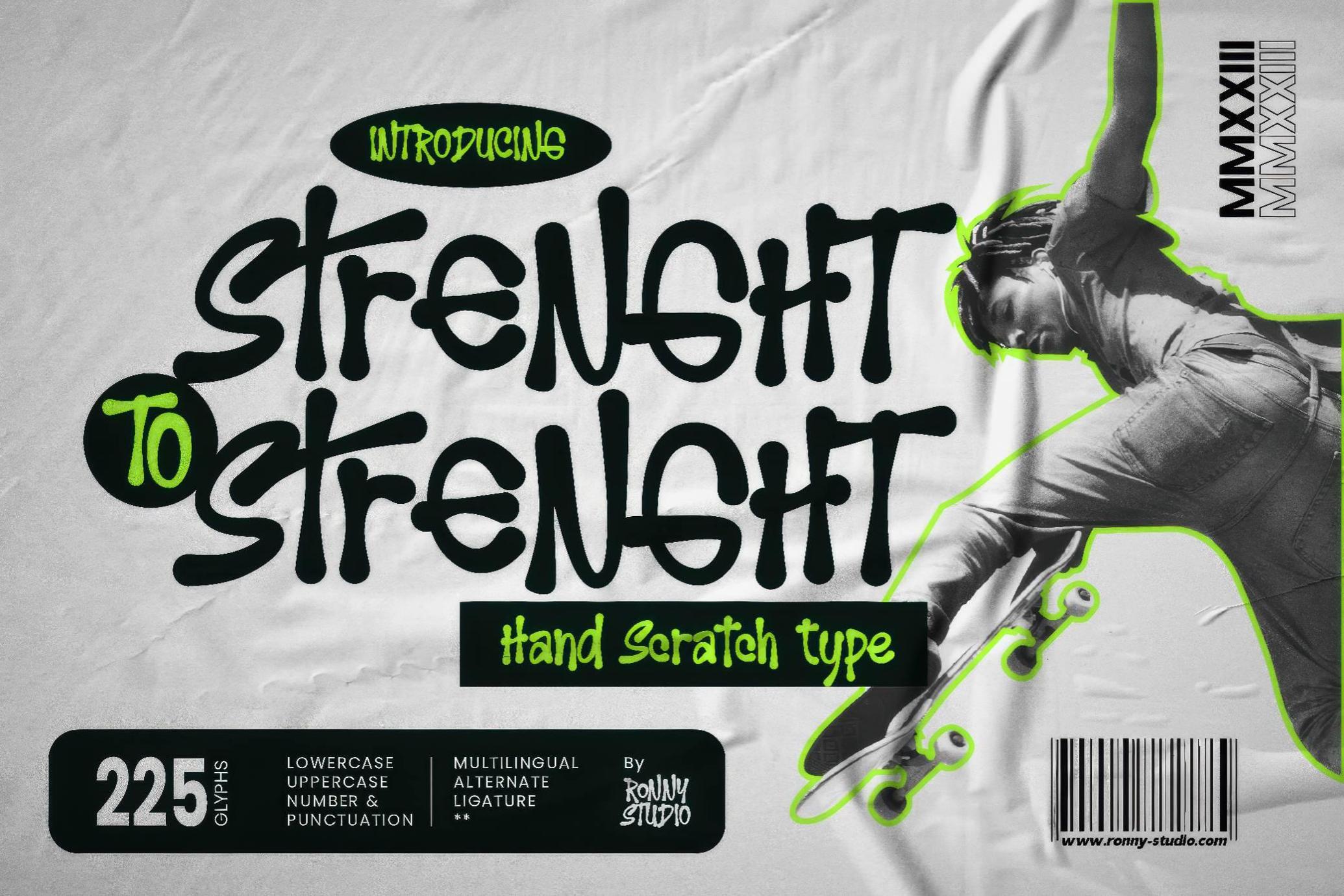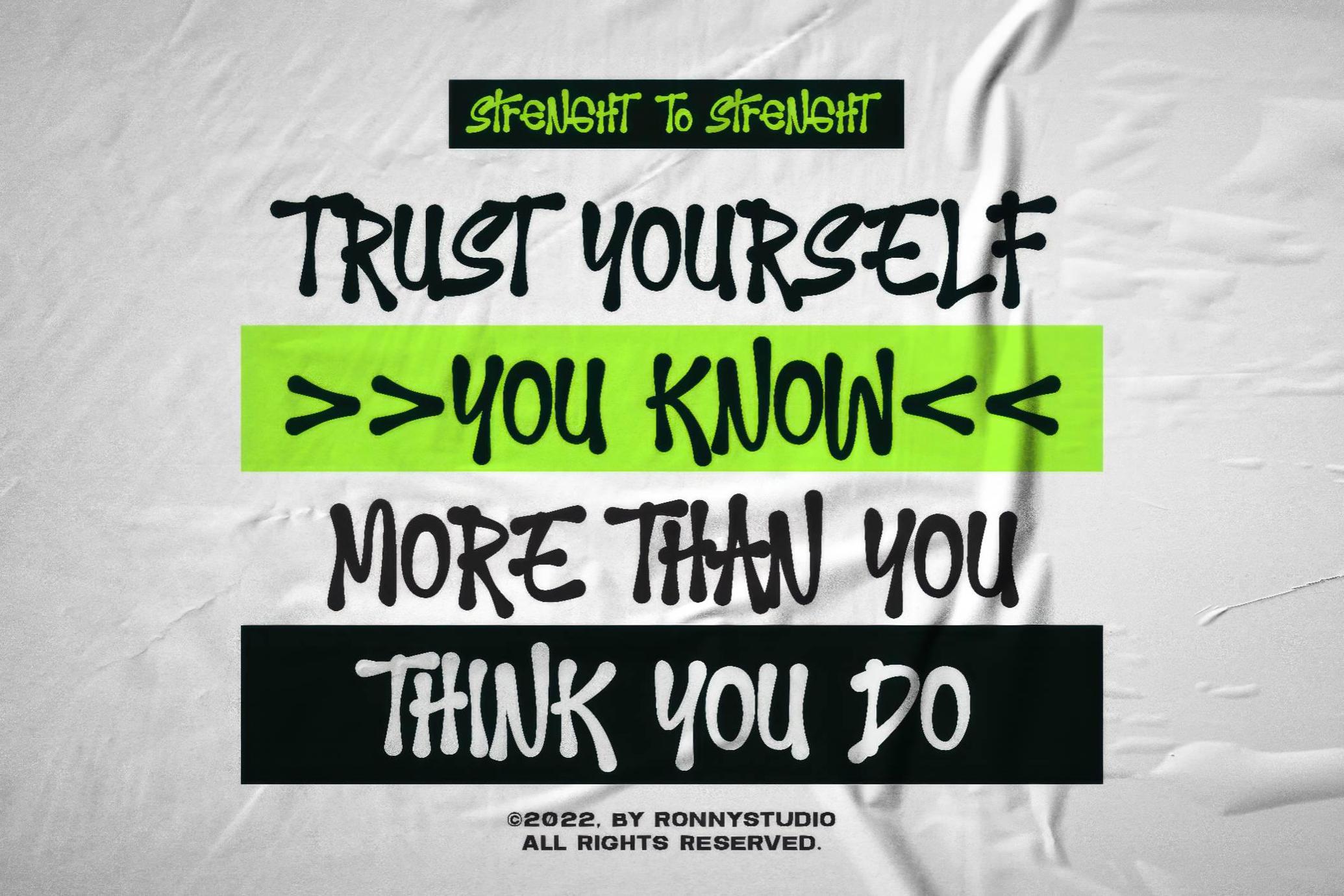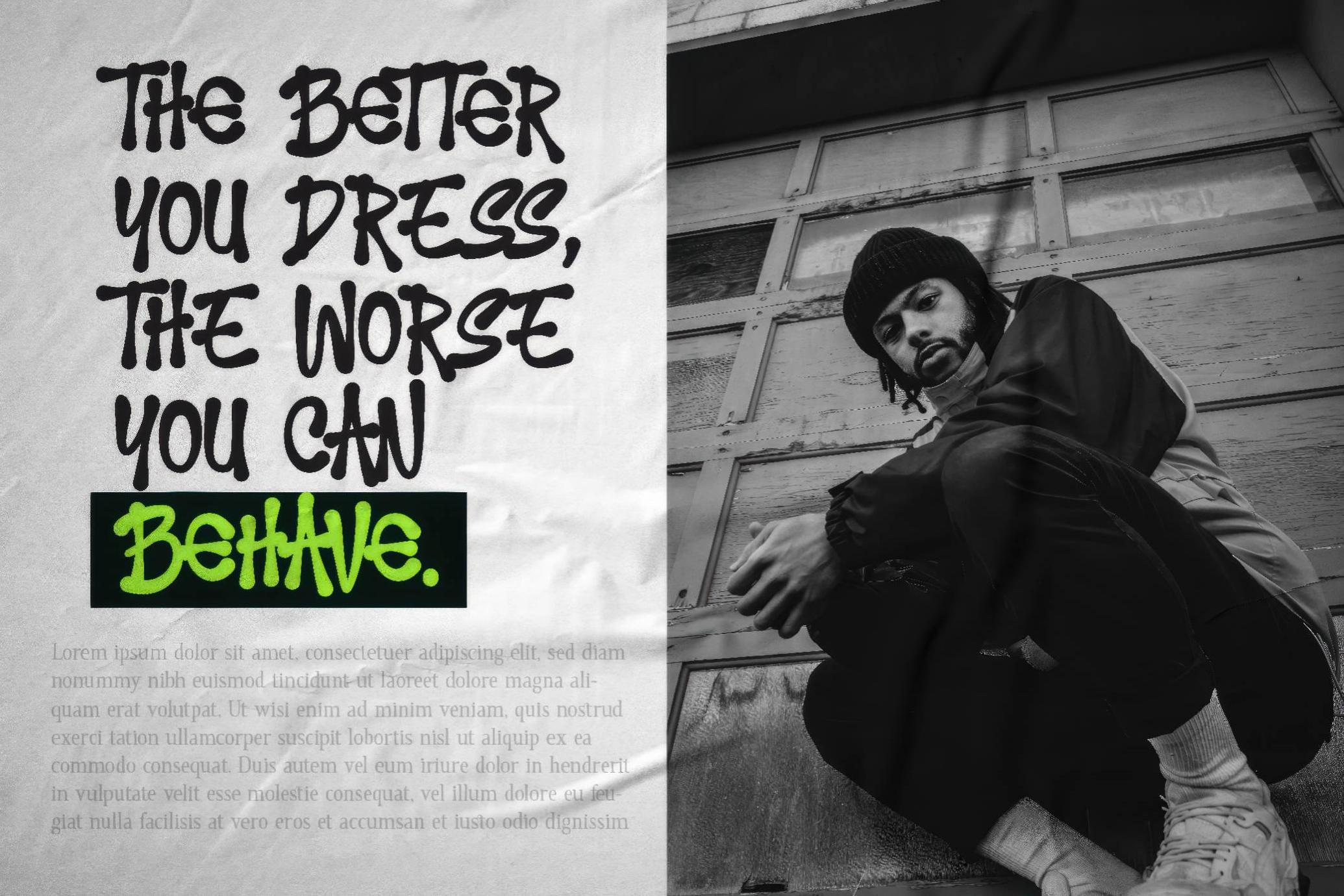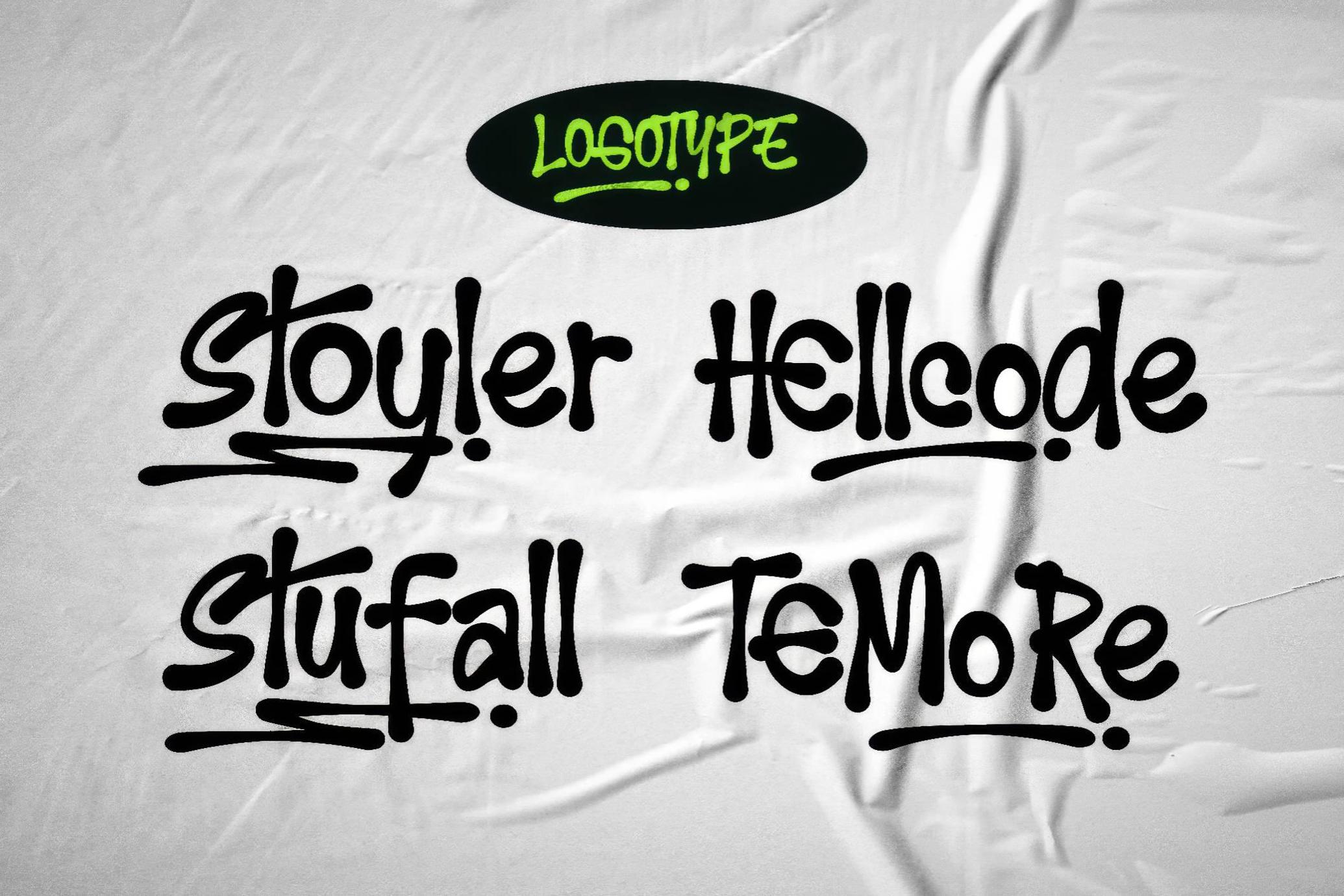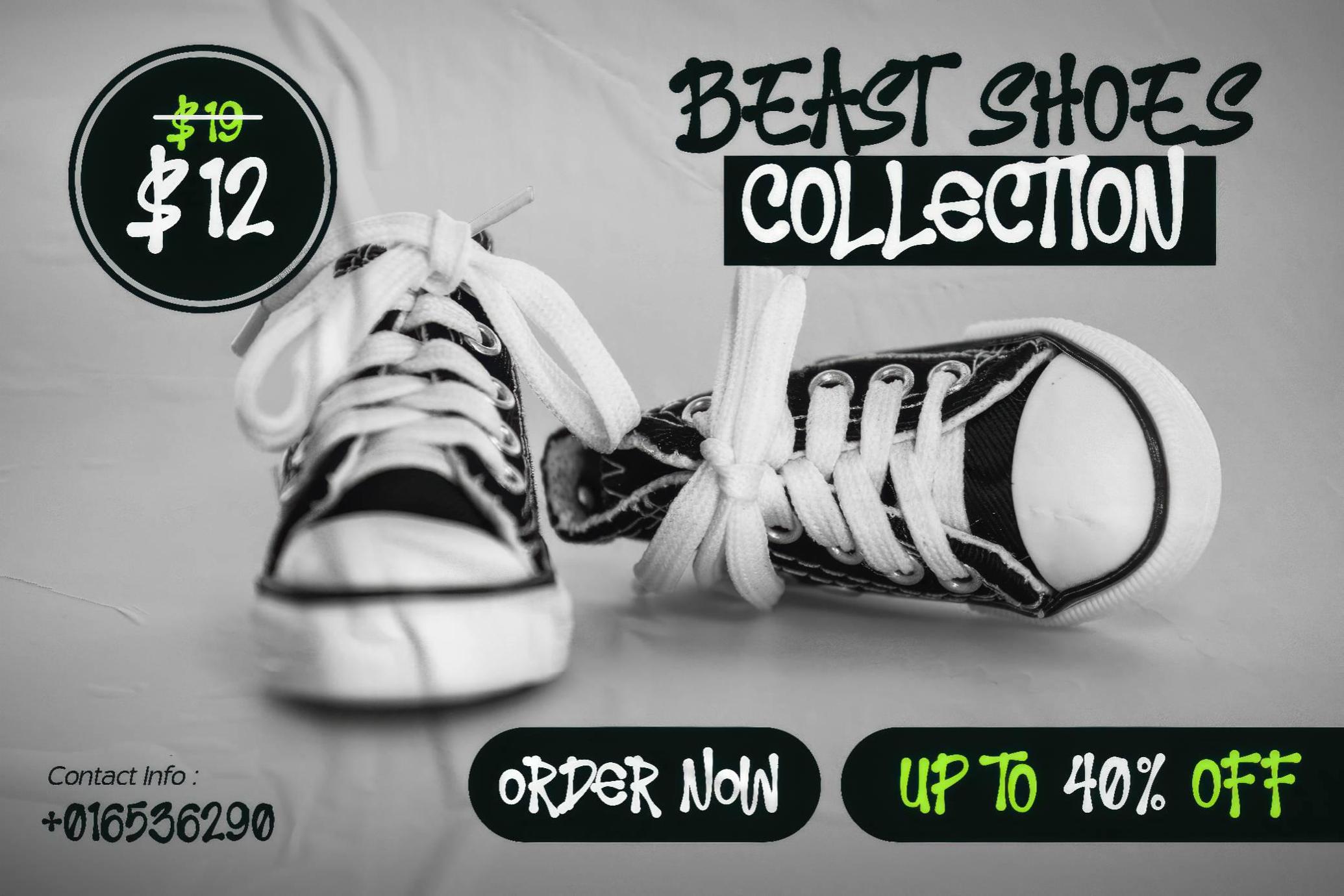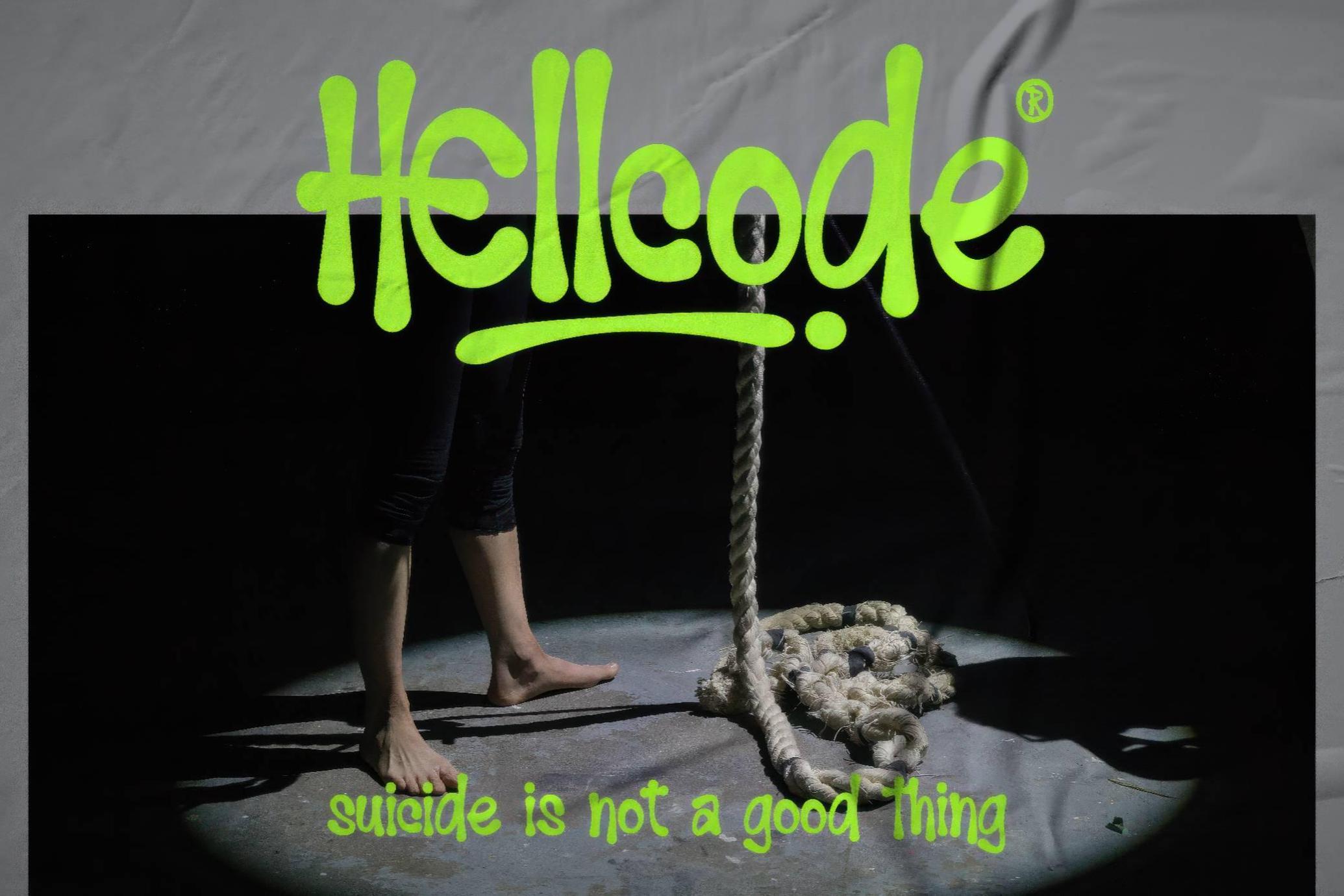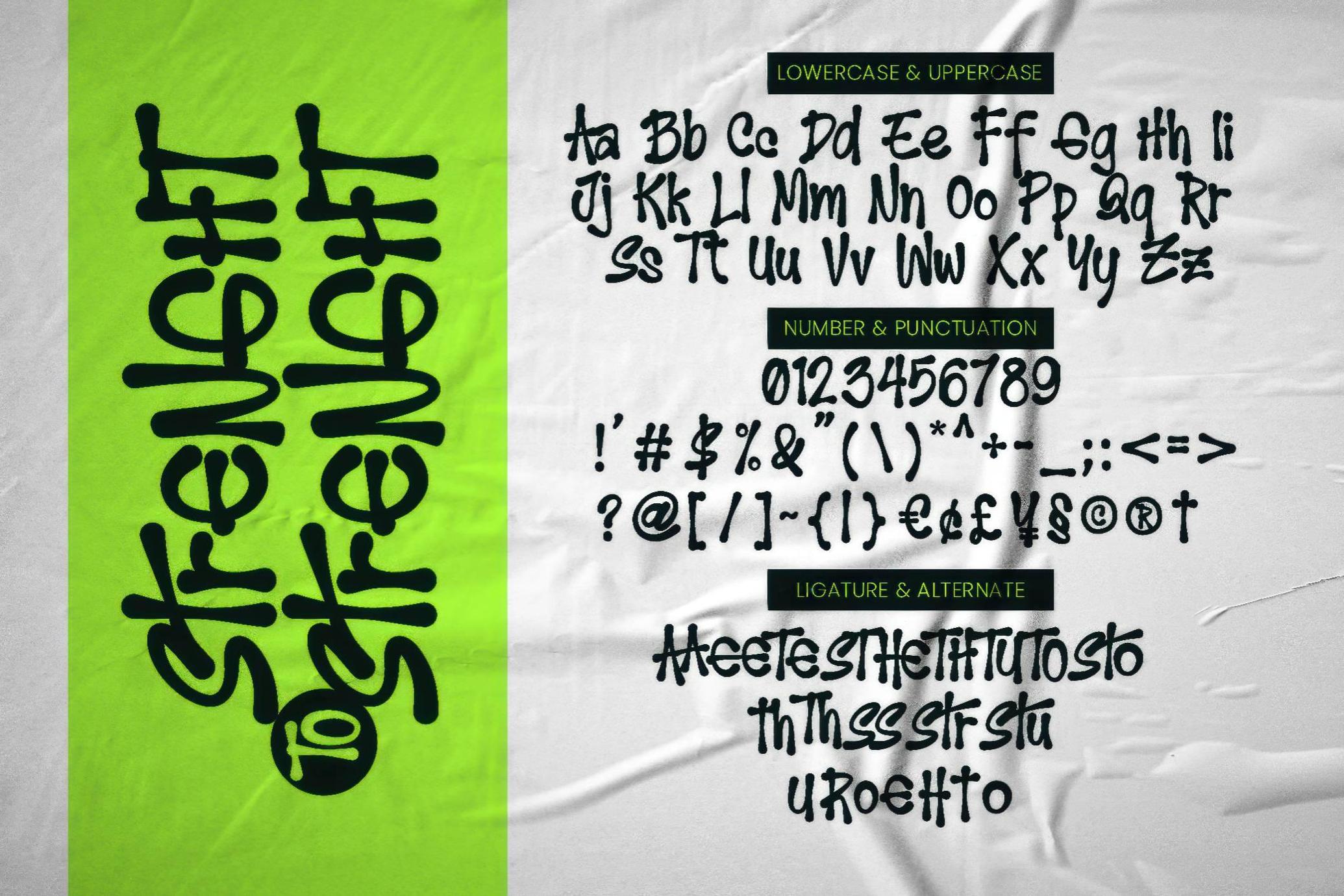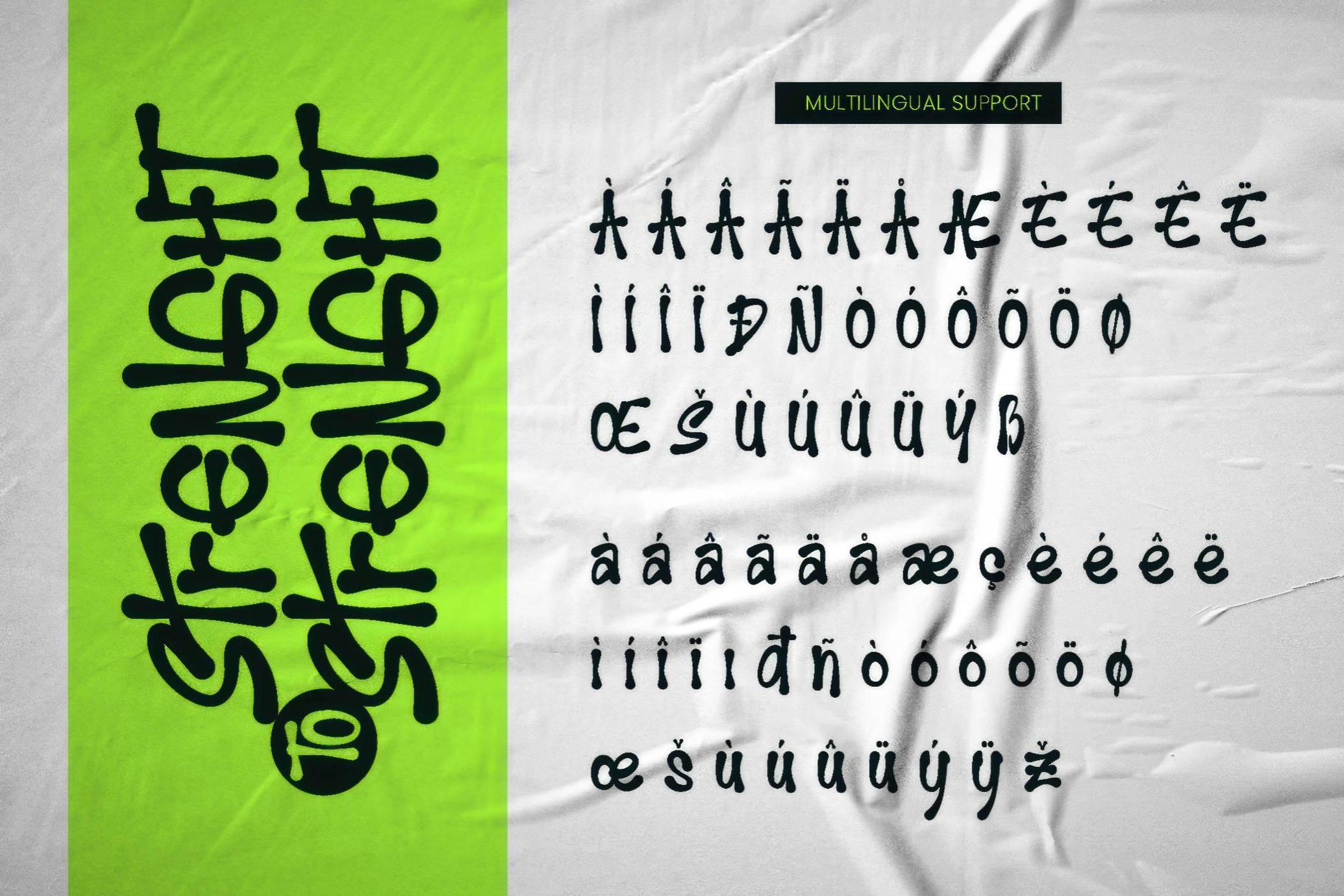
Strenght to Strenght | Hand Scratch Font
Strenght To Strenght
Swash
Strenght To Strenght rides the line between raw energy and controlled chaos, making it perfect for zines, underground event posters, skate merch, or streetwear branding. Its hand-drawn strokes mimic the feel of spray paint markers dragged across urban textures, capturing the spontaneity of graffiti with enough structure to hold a layout together.
The typeface includes uppercase and lowercase characters, numerals, punctuation, alternates, ligatures, and a touch of flair with swashes. Multilingual support is included too.